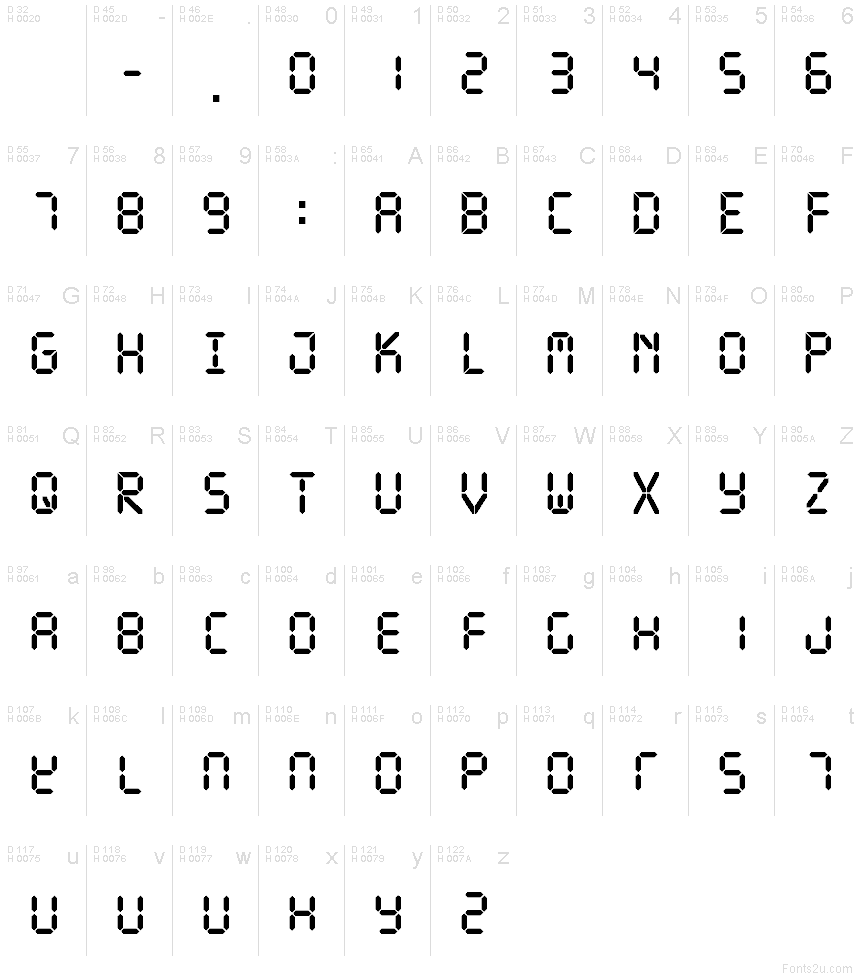
TC Calculator Digits
TC Calculator Digits font by Type City Font Co. is a free digital display typeface that nails the crisp, blocky glow of classic calculator and LED readouts. Its modular, squared-off segments lock neatly into a grid, giving every number a steady, machine-precise rhythm that reads instantly, even at tiny sizes. Use it when you want your data to feel tactile and electronic, like it’s buzzing on a handheld gadget from the ’80s.
Using TC Calculator Digits, numbers snap into place on dashboards, countdown timers, price tags, UI mockups, sci‑fi posters, retro game HUDs, and data visualizations. The tight spacing keeps numerical strings compact without feeling cramped, so long sequences still look clean and intentional. This free font pairs well with a neutral grotesk or geometric sans for labels and body text—set the digits a bit larger to emphasize the techy character and make key figures pop.